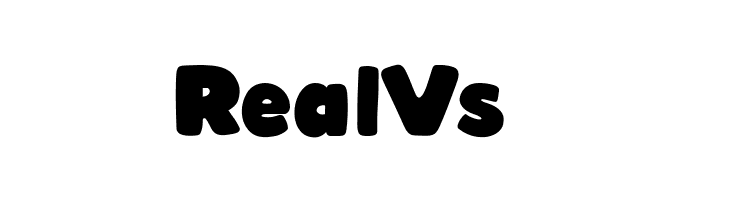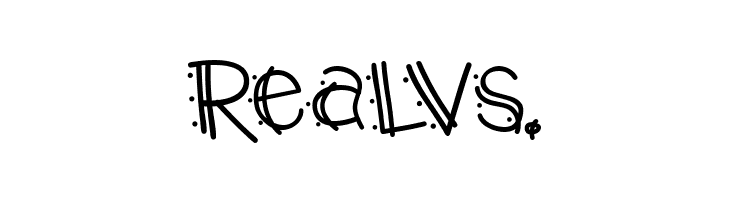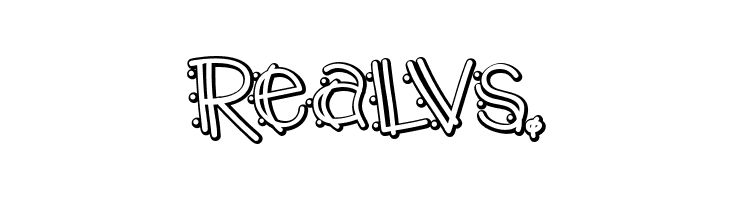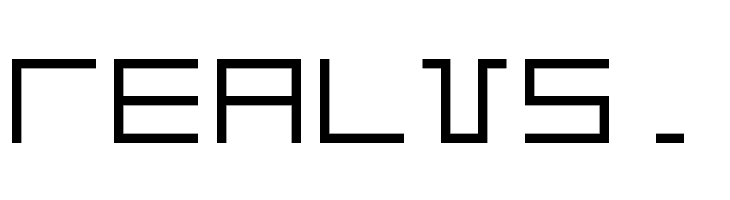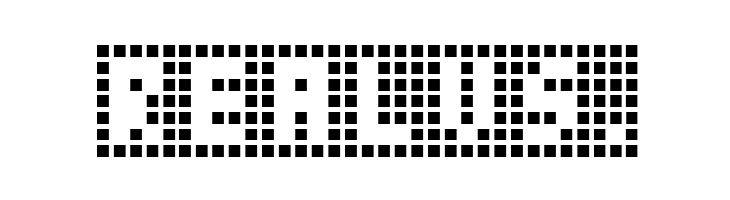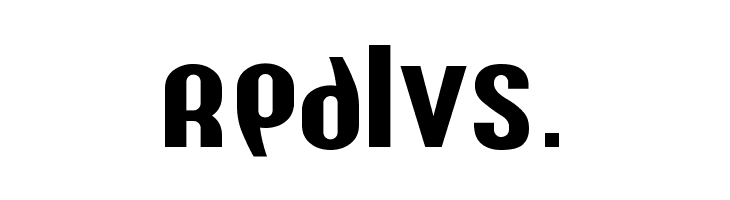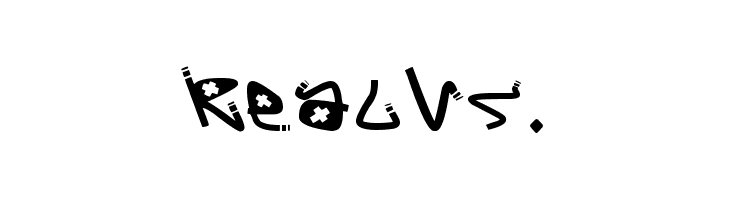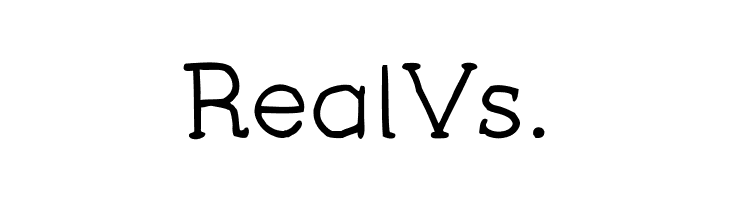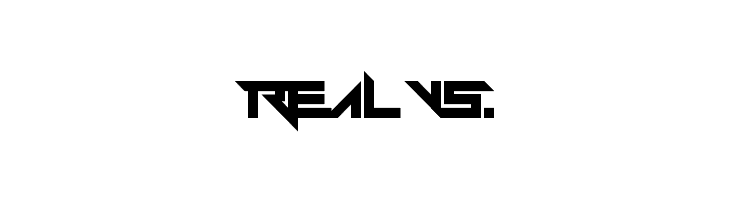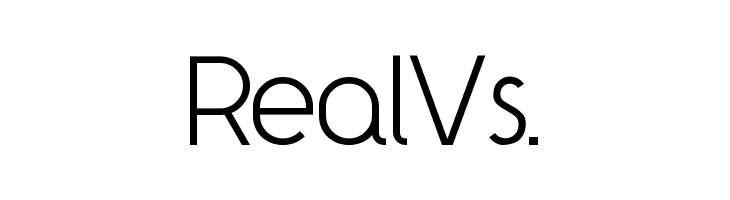
( Typodermic Fonts - Ray Larabie - www.typodermicfonts.com/ )
A bold, 3D hollow font with a geometric and retro-futuristic style.
( Typodermic Fonts - Ray Larabie - www.typodermicfonts.com/ )
A modern, stencil-like font with bold geometric shapes and sharp edges.
( Typodermic Fonts - Ray Larabie - www.typodermicfonts.com/ )
A bold, geometric font with a strong outline and modern appeal.
( Typodermic Fonts - Ray Larabie - www.typodermicfonts.com/ )
A modern, stencil-like font with geometric cuts and a bold presence.
( Typodermic Fonts - Ray Larabie - www.typodermicfonts.com/ )
A bold, geometric font with a modern and impactful style.
( Typodermic Fonts - Ray Larabie - www.typodermicfonts.com/ )
A bold, striped, and angular font with a modern, dynamic style.
( Typodermic Fonts - Ray Larabie - www.typodermicfonts.com/ )
A modern, geometric font with sharp angles and clean lines.
( Matias Romero - matiasromero.deviantart.com )
A bold, modern font with geometric and industrial elements.
( Fonts by Maulana Creative )
A bold, rounded font with a playful and friendly appearance.
( Fonts by Andrew McCluskey - nalgames.com )
A tall, narrow, and modern geometric font with consistent stroke width.
A bold, 3D geometric font with a modern, futuristic style.
A bold, three-dimensional font with horizontal stripes and a vintage-modern aesthetic.
A bold, decorative font with an engraved, three-dimensional appearance.
A modern, gradient-effect font with geometric, vertical emphasis.
A modern, halftone-style font with geometric structure and horizontal line patterns.
A bold, outlined geometric font with a vintage yet modern appeal.
A modern, geometric font with tall, narrow characters and minimal serifs.
A bold, 3D outlined font with a modern and decorative style.
A grid-based, pixelated font with a digital and futuristic style.
A bold, handwritten font with a playful and dynamic style.
A geometric, modern font with a digital and futuristic aesthetic.
( Fonts by www.koenhachmang.com - Glitch )
A bold, modern font with a digital, Y2K-inspired aesthetic.
( Fonts by www.koenhachmang.com - Glitch )
A modern, geometric sans-serif font with uniform strokes and balanced spacing.
( Fonts by Astigmatic One Eye Typographic Institute - Brian J. Bonislawsky - astigmatic.com )
A playful, dotted font with a retro pop culture vibe.
( Fonts by Astigmatic One Eye Typographic Institute - Brian J. Bonislawsky - astigmatic.com )
A playful, outlined font with a retro Y2K vibe and whimsical embellishments.
( Fonts by www.artill.de - Lukas Bischoff )
A playful and whimsical font with rounded, slightly irregular letterforms.
A modern, rounded sans-serif font with smooth curves and balanced spacing.
A bold, rounded sans-serif font with a modern and friendly appearance.
A modern, rounded font with a minimalist and clean design.
A modern, rounded sans-serif font with clean lines and balanced proportions.
A modern, rounded font with uniform stroke width and excellent readability.